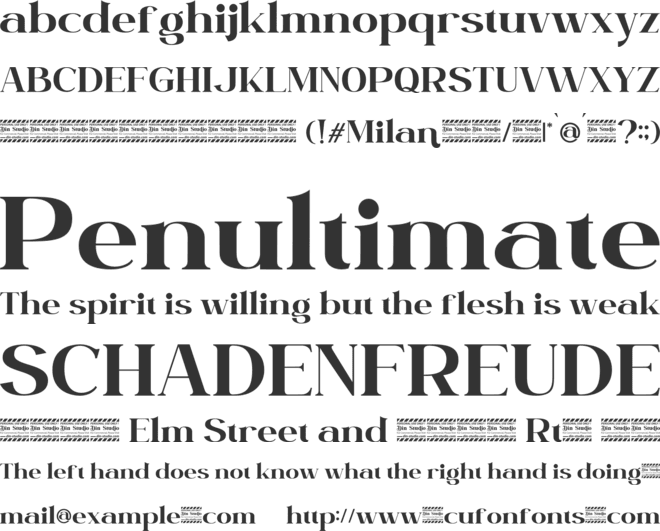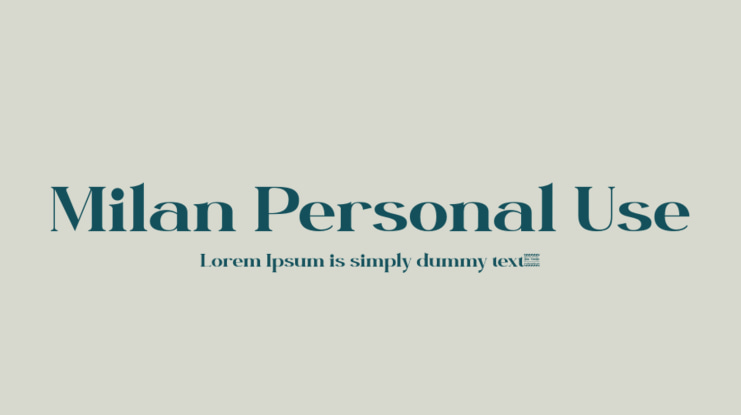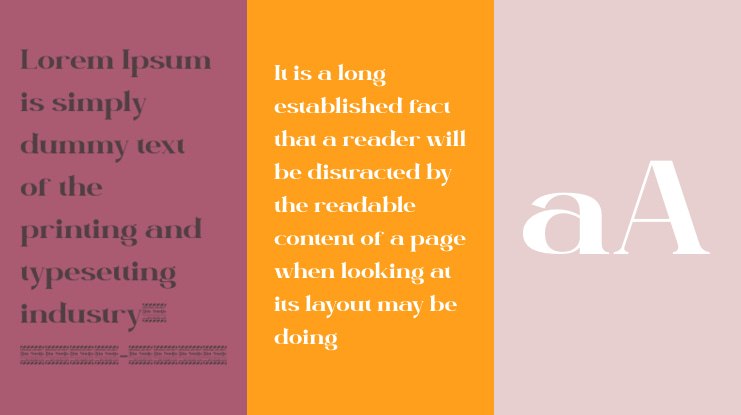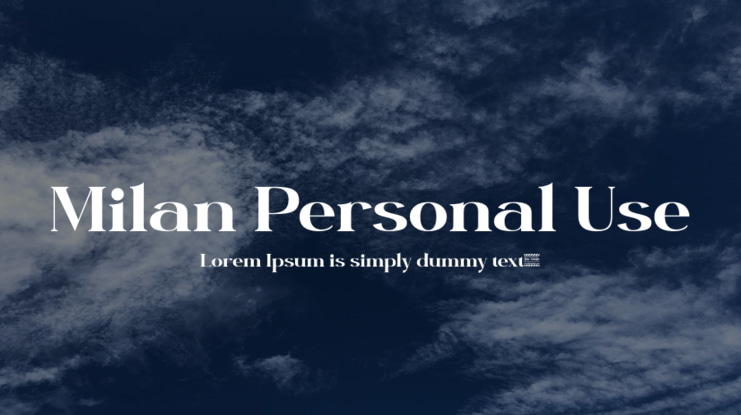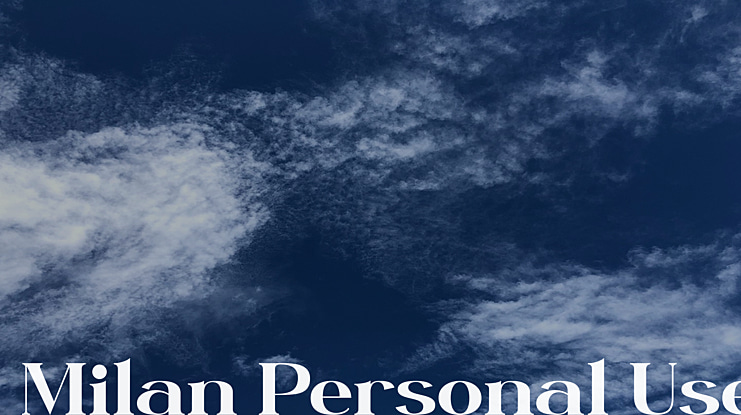
Product Description :
Milan is a package that will makes you super happy. We offer you a very best choice to coloring your branding or project. With this family you will get many options of weight to maximize your designs with stylish fonts. This serif font family made in uppercase and lowercase that easy on the eyes and nice to look while it’s also easy to read.